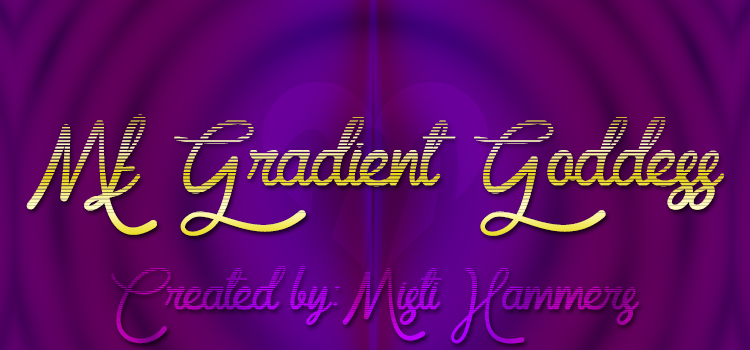
Mf Gradient Goddess by Misti's Fonts
Funky hand-drawn script font with gradient effects, ideal for creative projects requiring whimsical text styles.